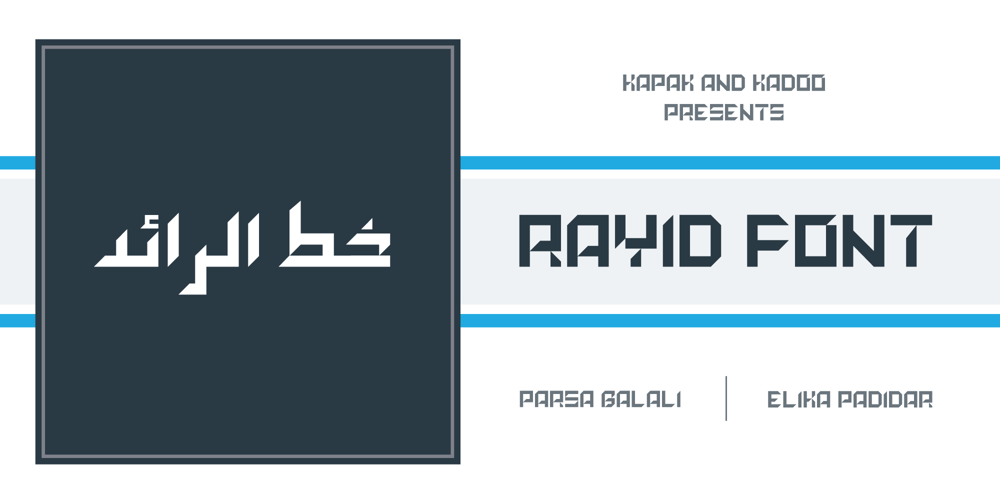
Rayid Font Family was designed by Elika Padidar, Parsa Balali and published by Kapak and Kadoo. Rayid contains 1 styles and family package options. Rayid (رائد): Pioneer.“What if we remove the curves?”This was the whole idea.Rayid could be used at its best for names, titles, headings and other large size contexts. It has the ability to catch the eyes of the target. It is a modern font which respects the traditions by futurism.*Arabic marks (Tashkeel) are included but if your design needs them, first check if they work properly for you.*Please DO NOT HESTITATE to tell me if you saw any bugs.